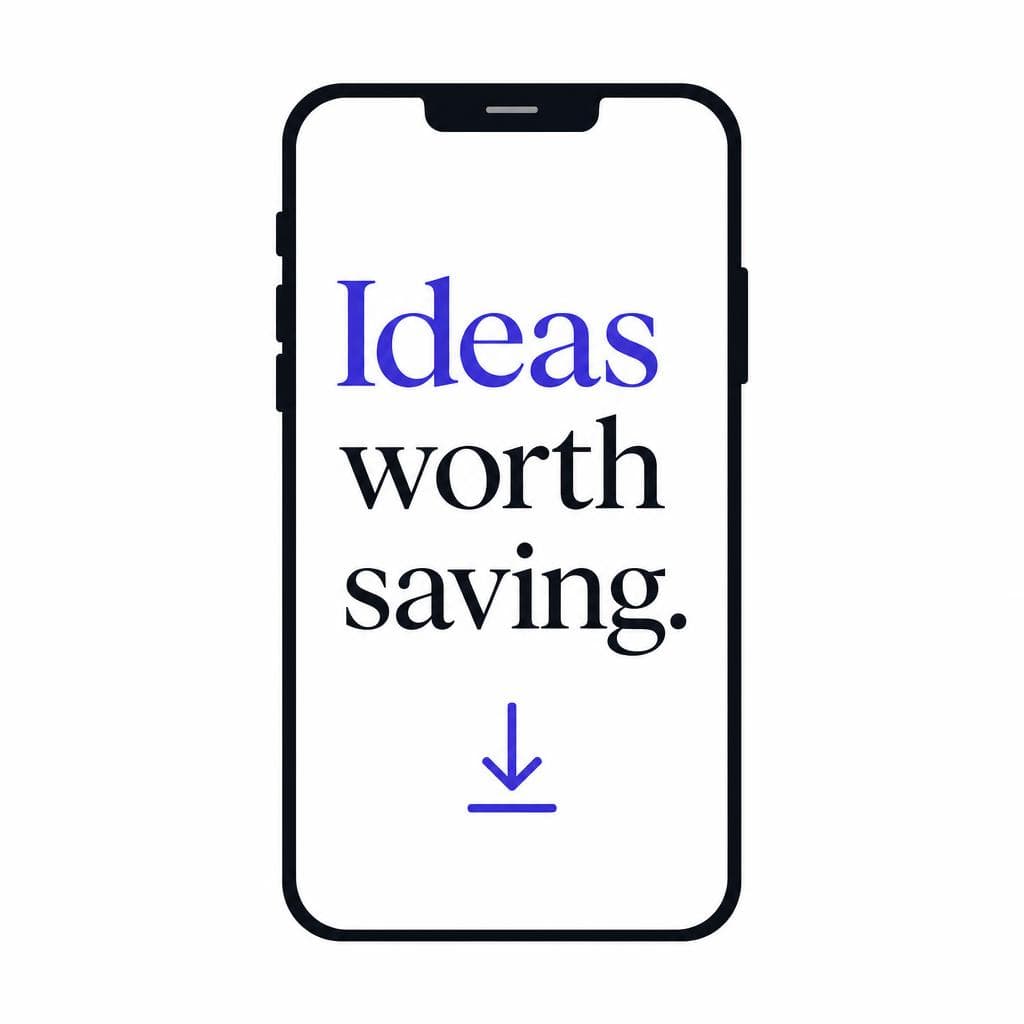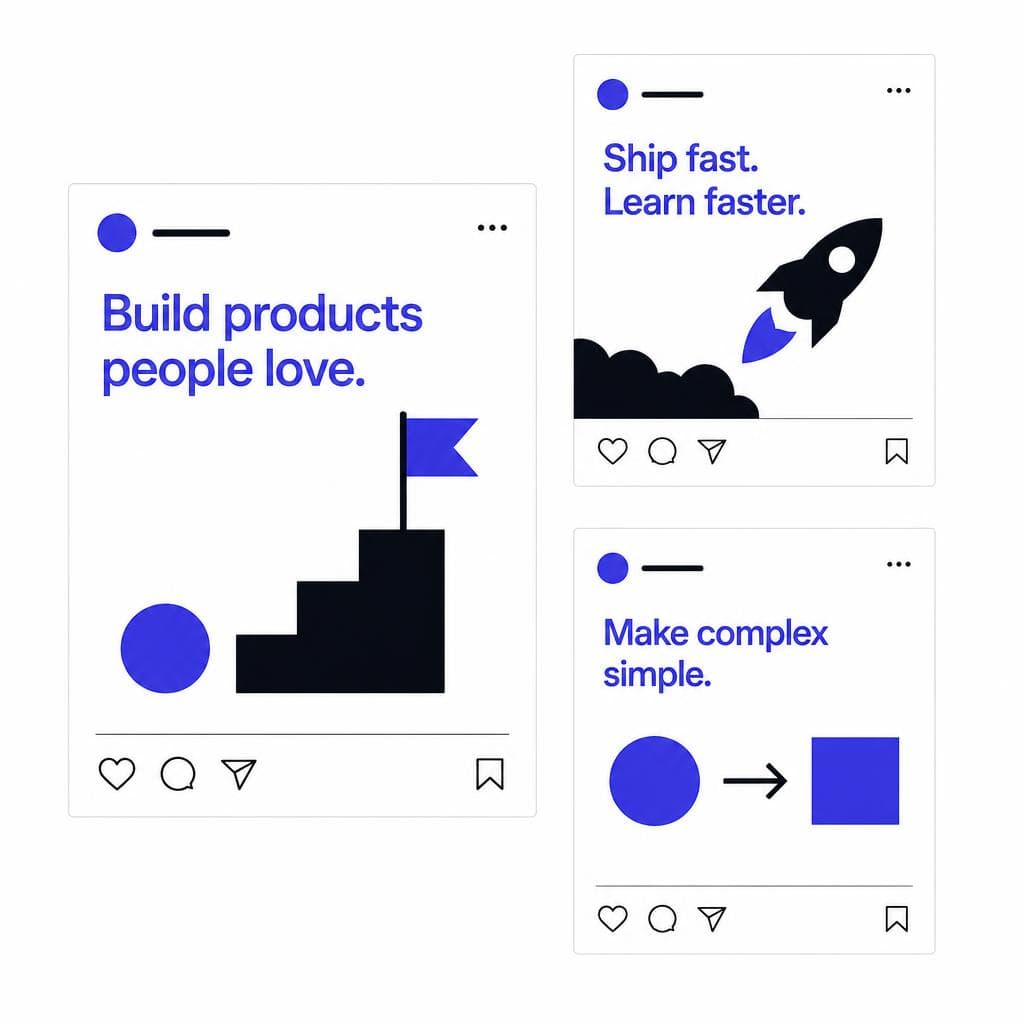
The most recognizable creators rarely rely on one viral post or a single design trend. They build recognition through repeatable visual signals: a familiar color palette, consistent framing, a clear voice, and typography that viewers can identify before they even read the caption. A custom font for social media can become one of the strongest of those signals.
Think about the posts you notice while scrolling. A bold condensed headline may instantly suggest a fitness coach. Soft handwritten lettering can signal a lifestyle creator, café, or wedding photographer. Clean geometric type often suits educational carousels and technology brands. The font is not simply decoration; it affects how professional, personal, energetic, premium, or trustworthy the content feels.
Creating a brand font social media strategy does not require a huge design team or a complicated rebrand. You need a type style that fits your voice, works on a phone screen, and can be used consistently in the tools where you make content. This guide explains how to choose the right style, turn a visual reference into your own usable font, install it, and apply it across Instagram, TikTok, YouTube, Pinterest, and other platforms.
Why Font Consistency Matters on Social Media
Social feeds move quickly. People may spend only a second deciding whether to pause on a Reel cover, carousel slide, Story, or quote graphic. Consistent typography gives them a shortcut: it tells them the post is yours before they consciously register your username. Over time, this familiarity improves recall and makes an account feel intentional rather than assembled from unrelated templates.
A consistent font social media system also reduces decision fatigue. Instead of choosing from hundreds of fonts for every post, you work from a small set of approved styles. That makes creation faster, helps collaborators stay on-brand, and gives campaigns a cohesive look even when the topics change. For example, a nutrition creator might use one bold display font for carousel headlines, a highly readable sans serif for explanations, and an optional handwritten accent for personal notes. The repeated roles matter as much as the individual fonts.
Consistency builds trust, too. If a creator’s visuals change radically from post to post, audiences can interpret the account as less established, even when the underlying information is excellent. By contrast, a stable social media typography system makes educational content easier to scan and promotional content feel more polished. This is especially useful when you sell services, templates, digital products, courses, or physical goods.
Do not confuse consistency with using one font in every size, weight, and context. Good typography creates a recognizable rhythm while still providing contrast. Your headline font should grab attention; your body copy should be comfortable to read; your call-to-action should be obvious. The goal is a repeatable visual language, not a page full of identical text.
A practical starting point is to document three decisions: your primary display font, your supporting text font, and your standard text treatments. Note which font is used for Reels covers, carousel titles, subtitles, testimonials, price graphics, and Story announcements. Save those choices in templates so your future content naturally follows the same system.
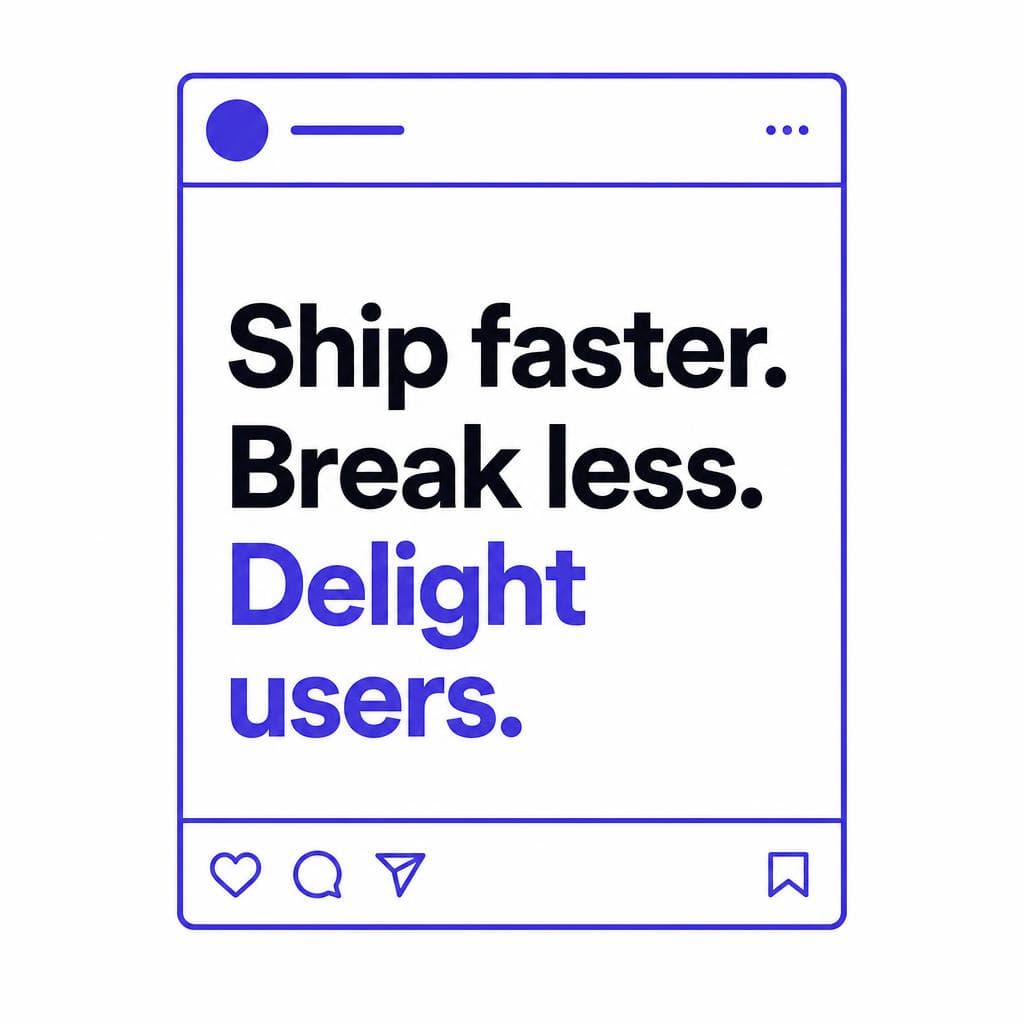
What Kind of Font Works Best for Social Content?
The best social media font is not necessarily the most decorative one. It is the font that matches your identity and remains legible under real mobile conditions. Most people view social posts on relatively small screens, often in bright light and while scrolling quickly. That means readability should guide every decision.
### Start with your brand personality
Translate a few brand adjectives into typographic traits. If your content is playful, expressive, and personal, a rounded or hand-drawn font may fit. If you teach finance, wellness science, or business strategy, a stable serif or clean sans serif can communicate clarity and authority. A fashion creator might choose a high-contrast editorial serif; a gaming creator may prefer a heavy, angular display face.
Try this simple exercise: write down three words you want viewers to associate with your account, such as “warm, practical, optimistic” or “bold, precise, premium.” Then collect five examples of typography that evoke those words. Look for patterns in letter width, stroke thickness, rounded versus sharp corners, uppercase use, and spacing. Those patterns are more useful than choosing a font solely because it is currently trending.
### Prioritize legibility before personality
For a font for Instagram, test the actual use case rather than judging letters at a large size on your desktop. Put a sample headline on a 1080-by-1350 pixel post, view it at phone size, and ask whether it can be read in under two seconds. If the answer is no, simplify the treatment.
Avoid overly thin strokes for small captions and dense scripts for multi-word headlines. Decorative fonts can be effective as an accent, but they often become tiring or unclear when used for every slide. Pay special attention to characters that look alike, such as I, l, 1, O, and 0, if your content includes names, prices, links, or steps.